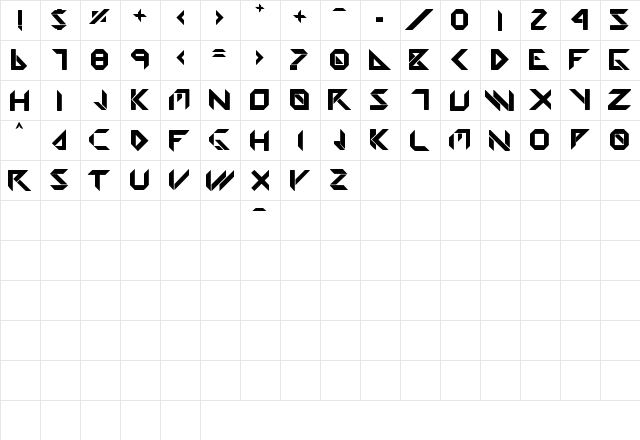
Amputa Regular
Design Context for Amputa Typeface
Amputa is a composed and adaptable typeface that performs quietly and consistently across a wide range of design contexts.